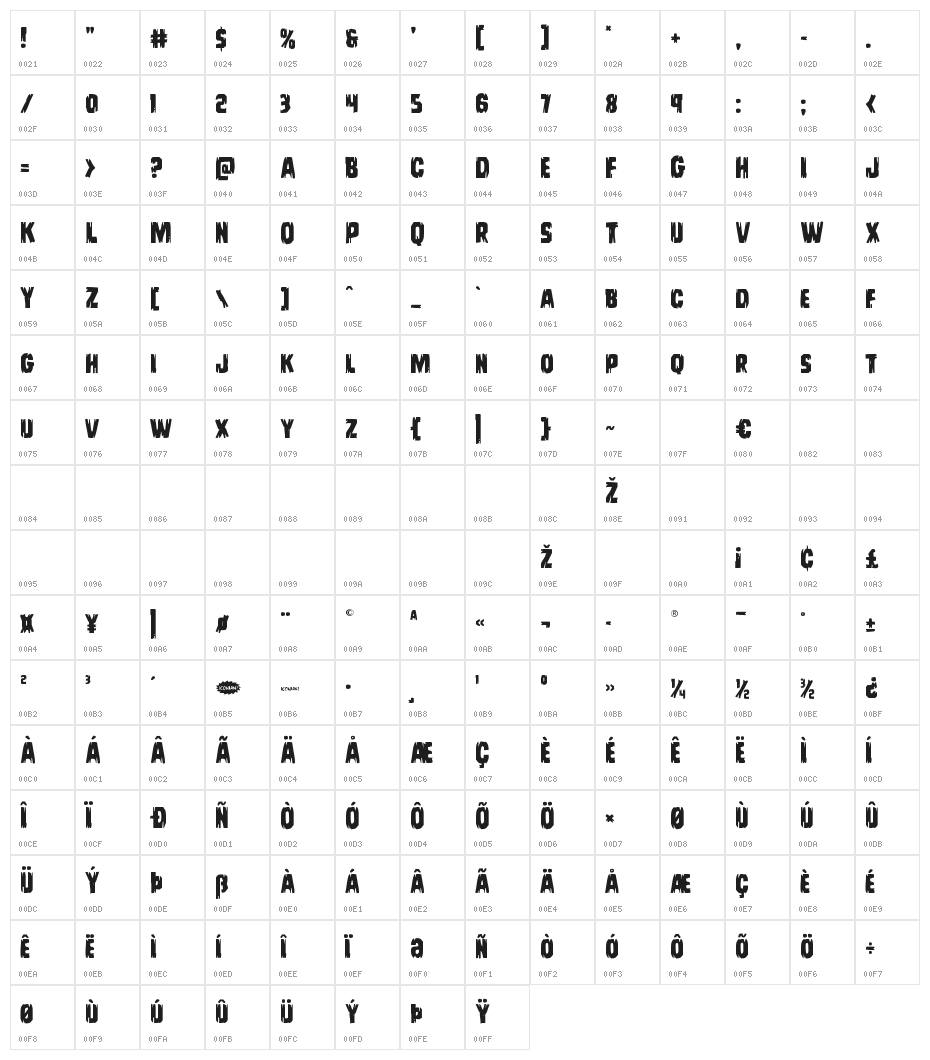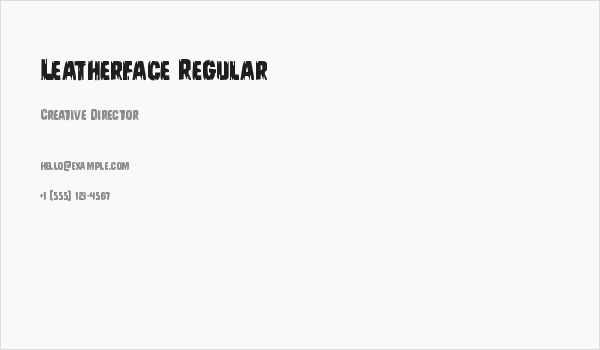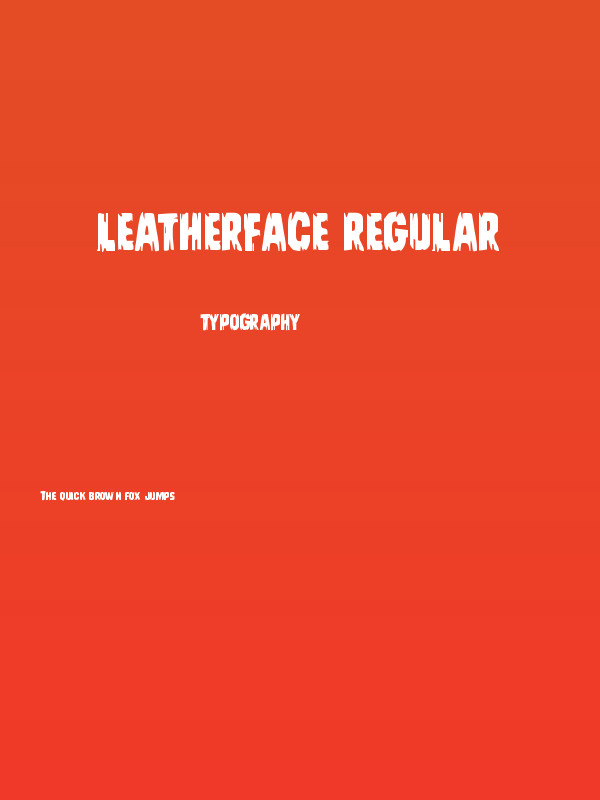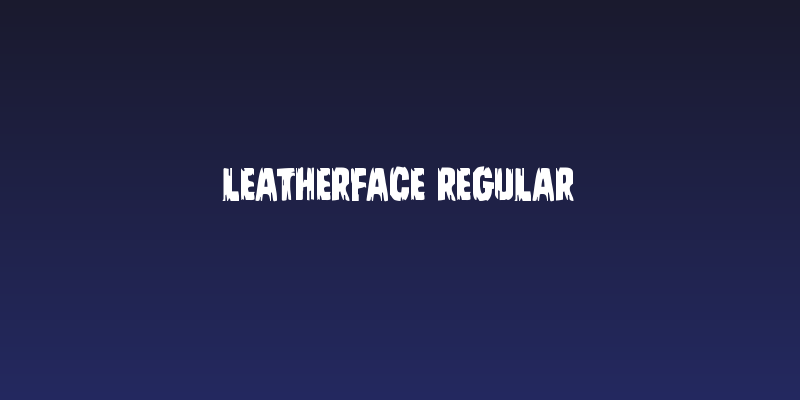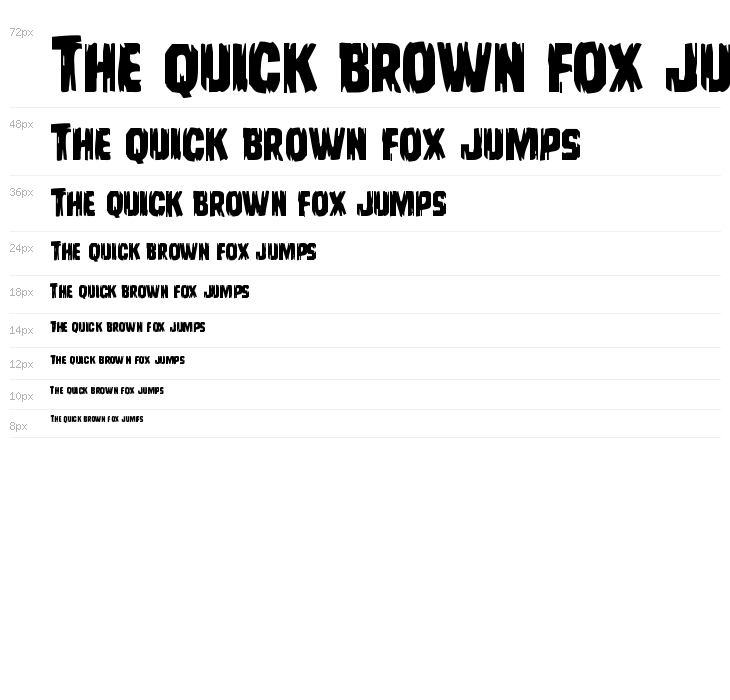
Leatherface Regular Font
Leatherface Regular Description
This font features a bold and rugged design with a distressed, grunge-like appearance. The characters have a jagged, uneven edge that gives them a raw and edgy look, reminiscent of horror or thriller themes. The uppercase and lowercase letters maintain a consistent style, with a strong emphasis on the vertical strokes, creating a sense of urgency and intensity. The numbers and special characters follow the same aesthetic, ensuring a cohesive appearance across all glyphs. This font is ideal for projects that require a dramatic and impactful visual statement.
Proposed ProjectsIdeal for horror movie posters, Halloween event flyers, edgy branding, and album covers.